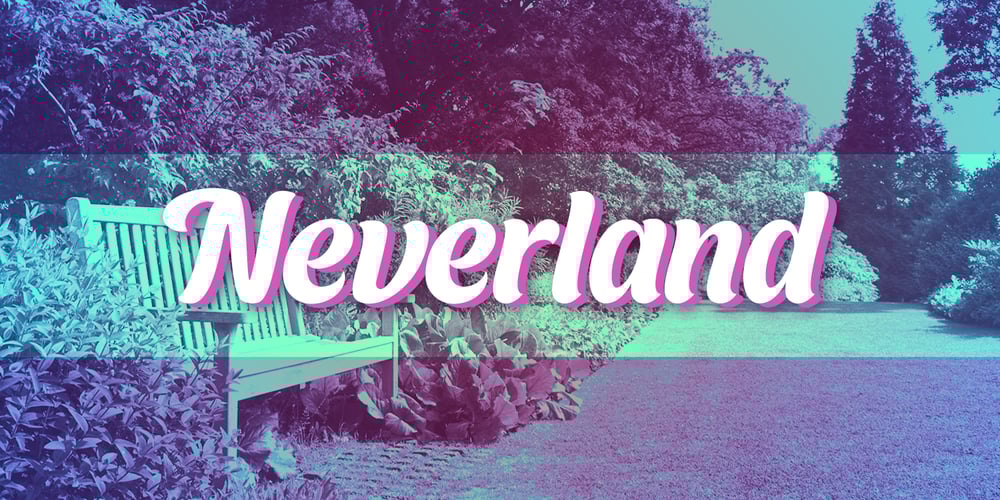
Neverland Font Family was designed by published by Mirror Types. Neverland contains 1 styles and family package options. Neverland is my attemp of a lettering font. I was inspired by the letters in displays of retaurants. It will work great in posters, shirts, magazines and displays because it has a charming feel. I received a lot of help from my good friend Maximiliano Sproviero (Lián Types). The name is based on the tale of Peter Pan from James Matthew Barrie.